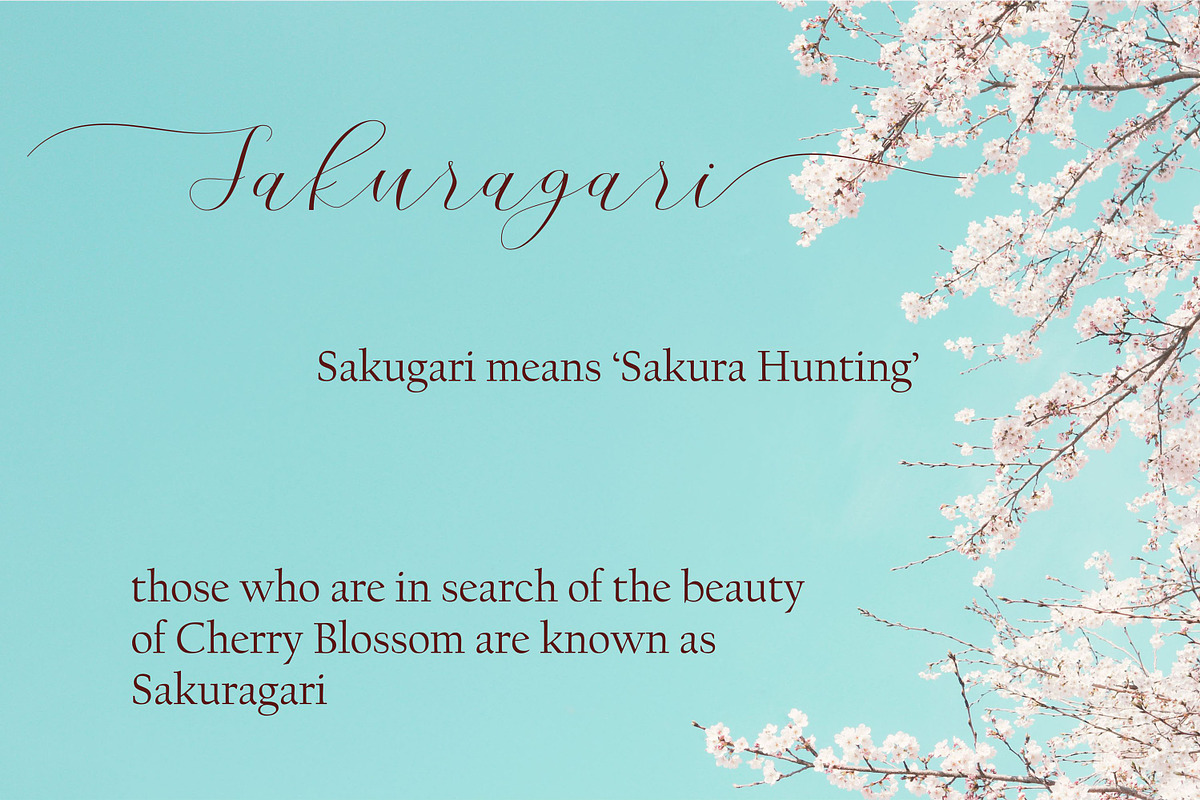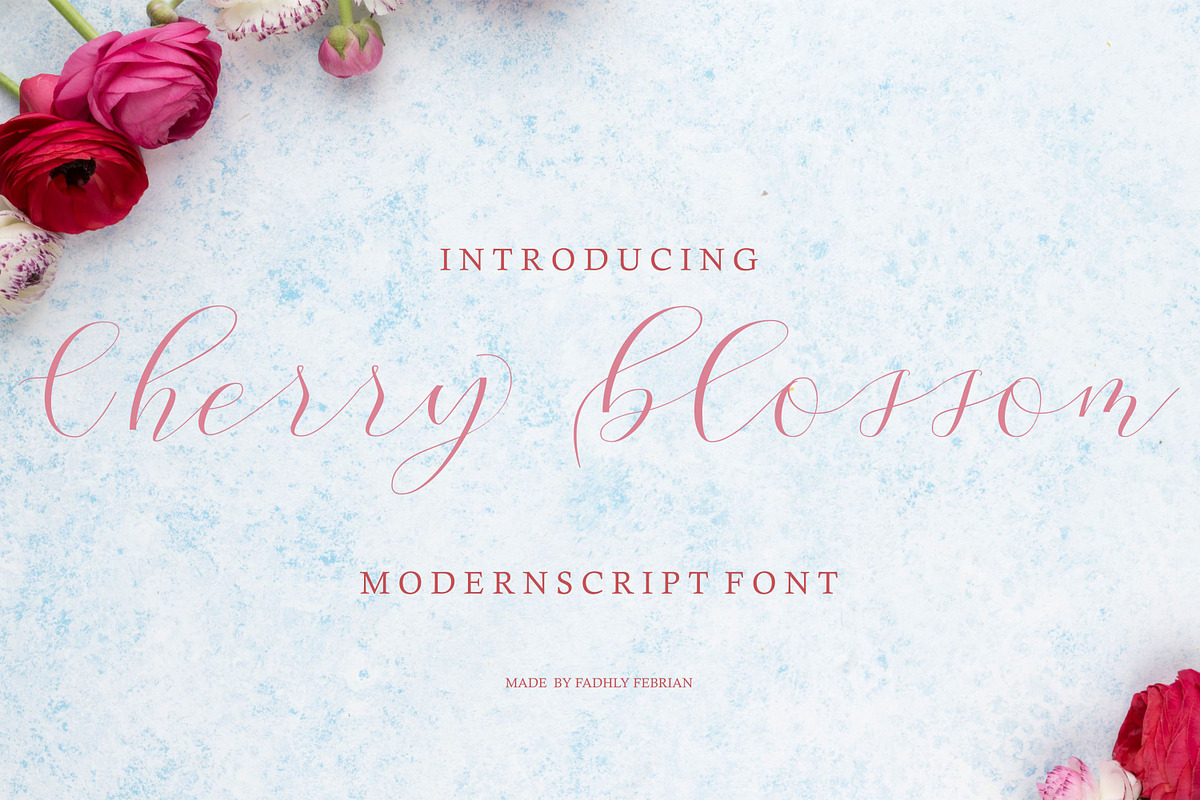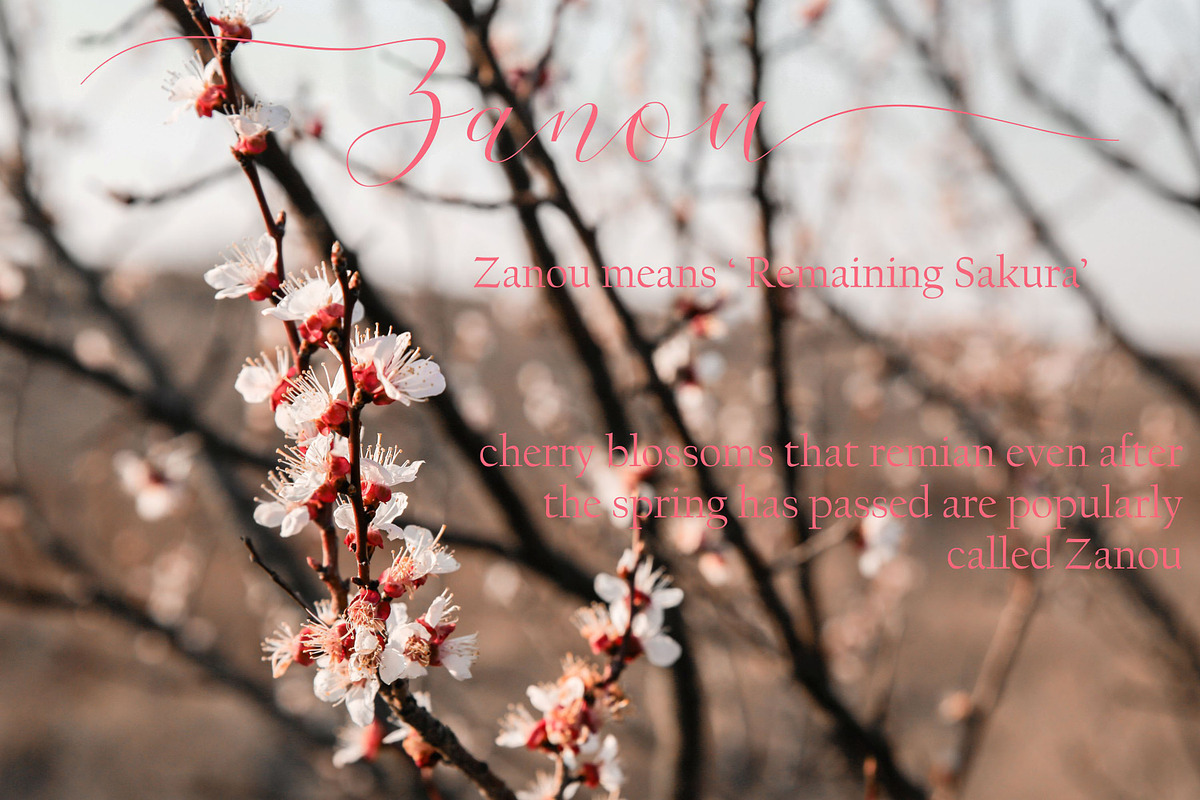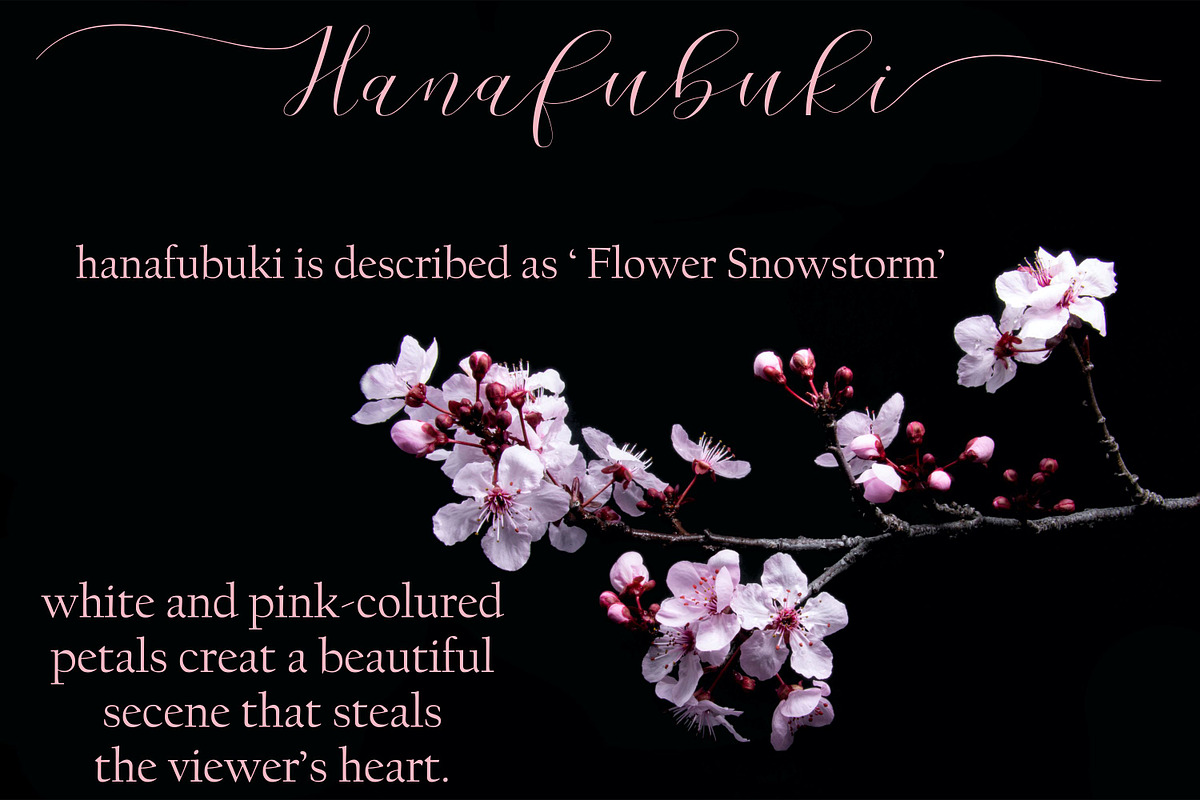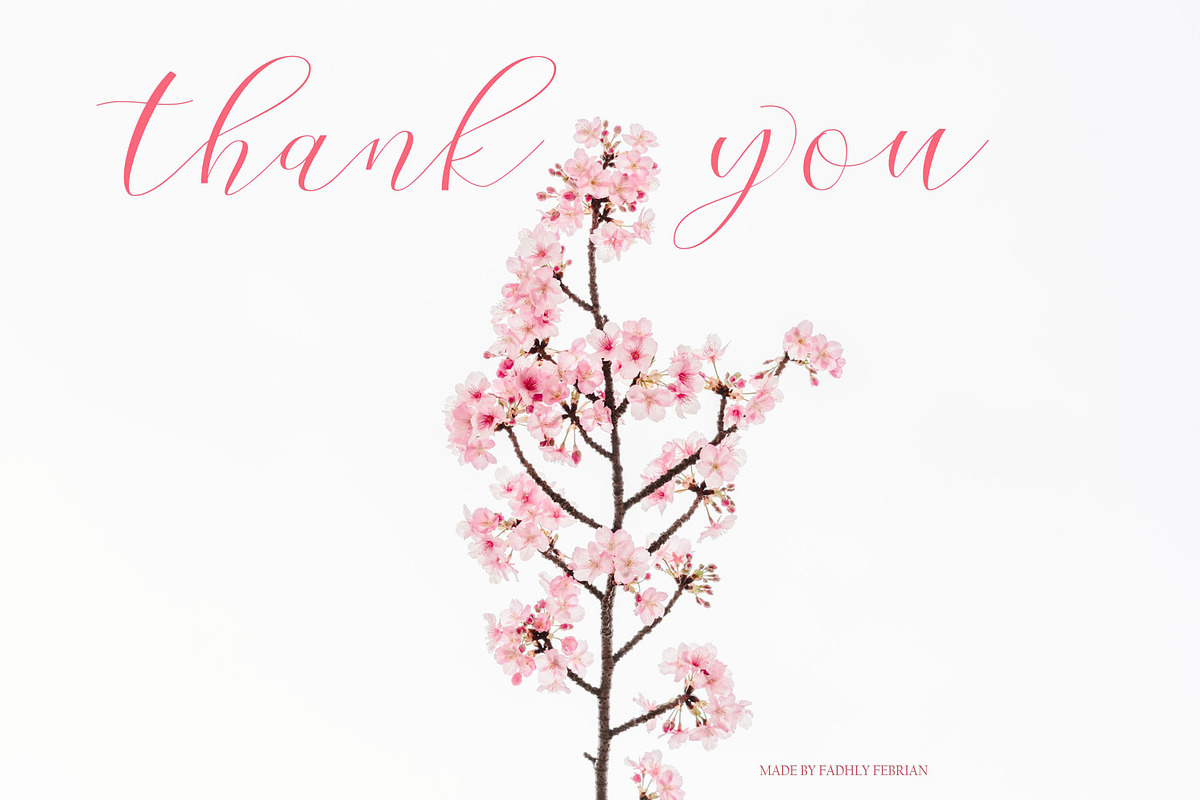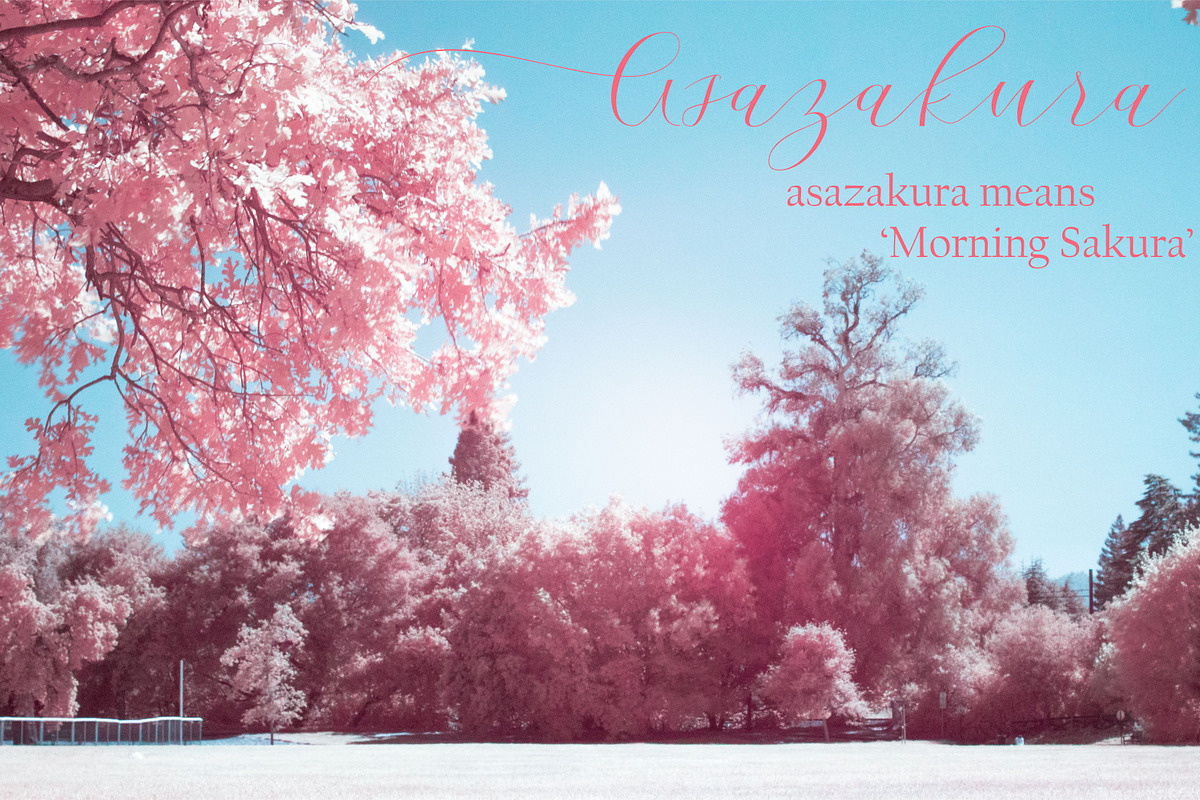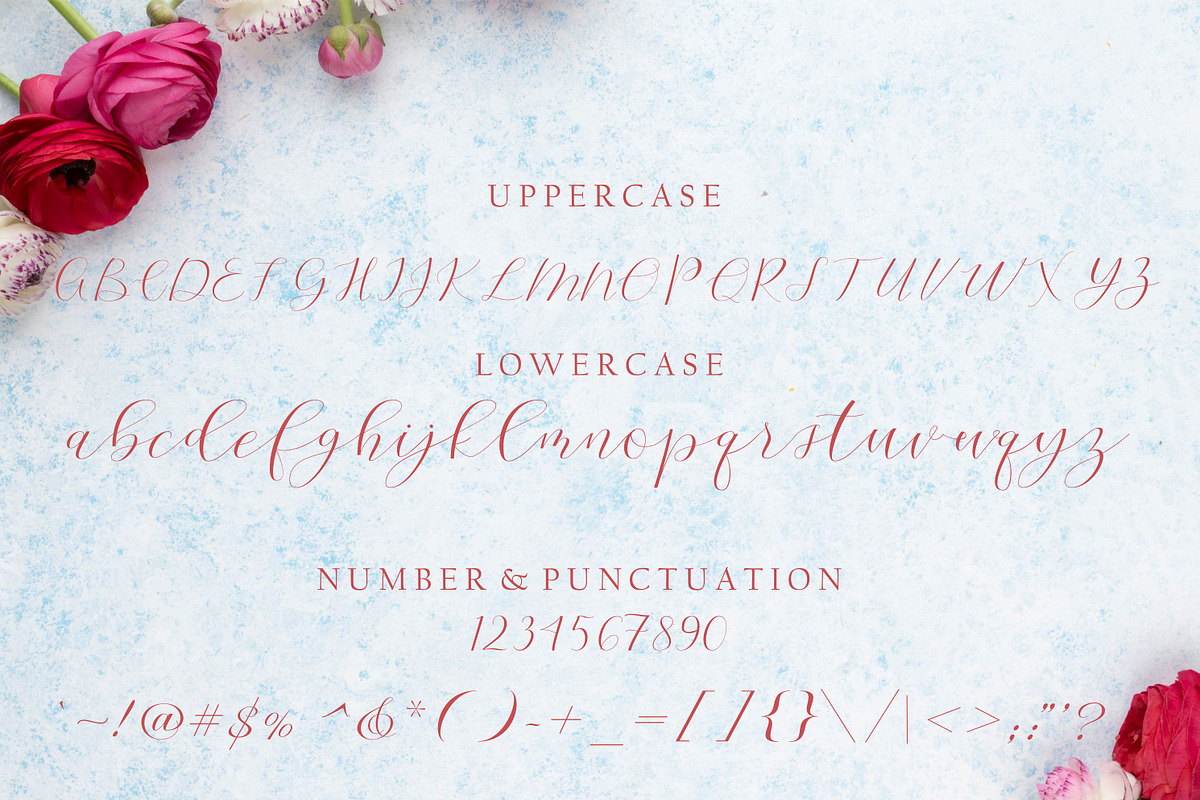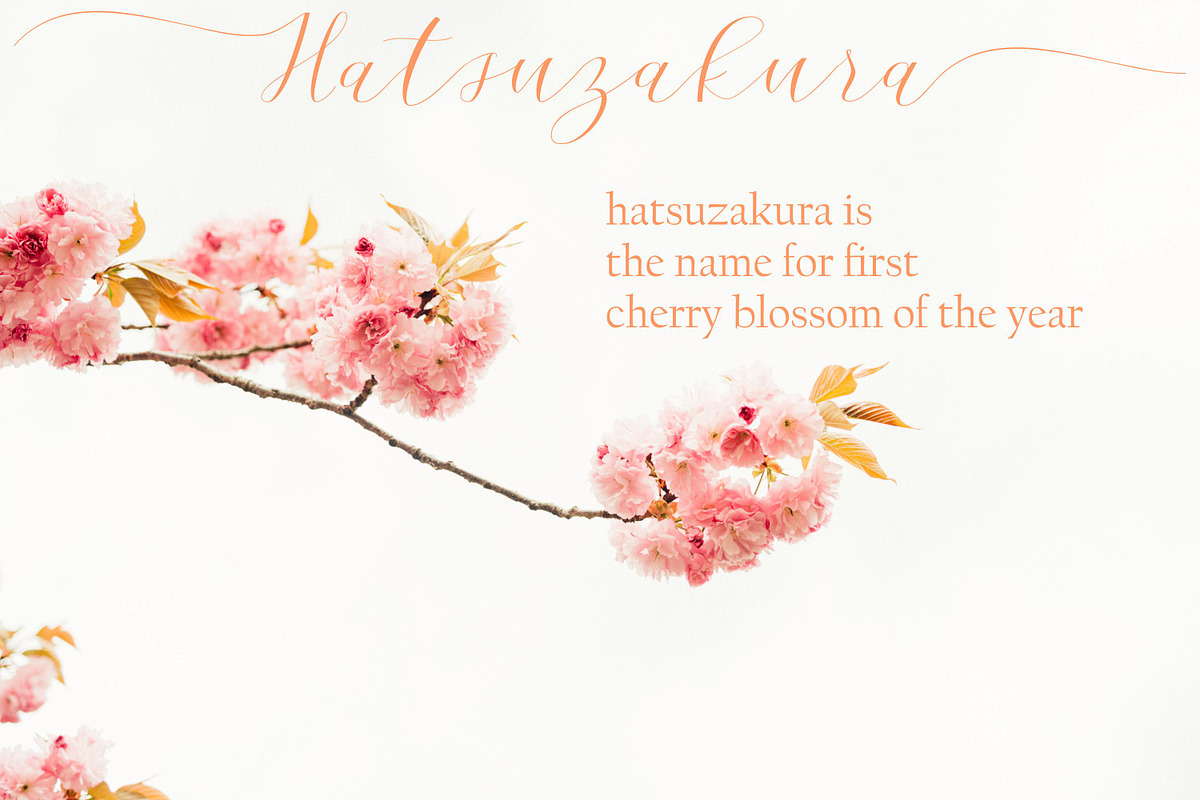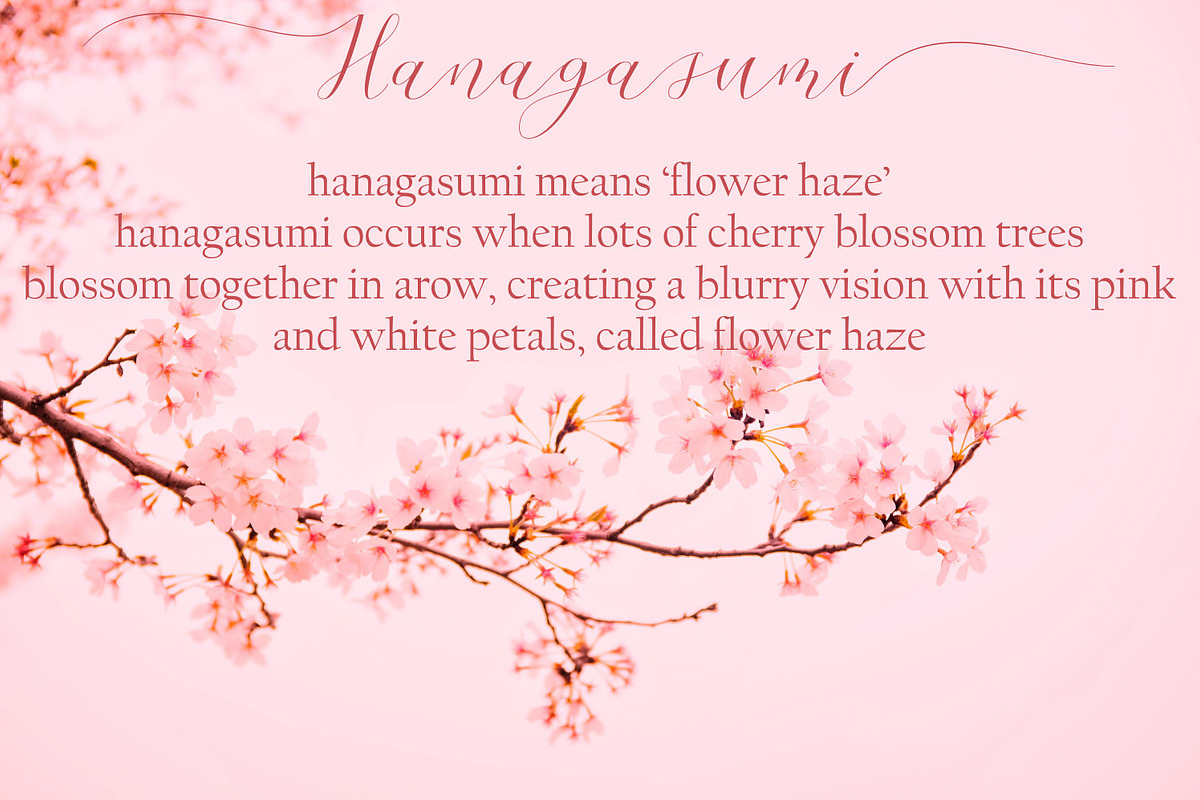
Cherry Blossom
Cherry Blossom Script is a romantic and sweet calligraphy typeface with characters that dance along the baseline. It will add a luxury spark to any design project that you wish to create such as: wedding invitations, birthday invitations, logo designs, T-shirts, postcards, advertisements, magazine titles, apparel branding etc. And also with OpenType features for alternative font choices.